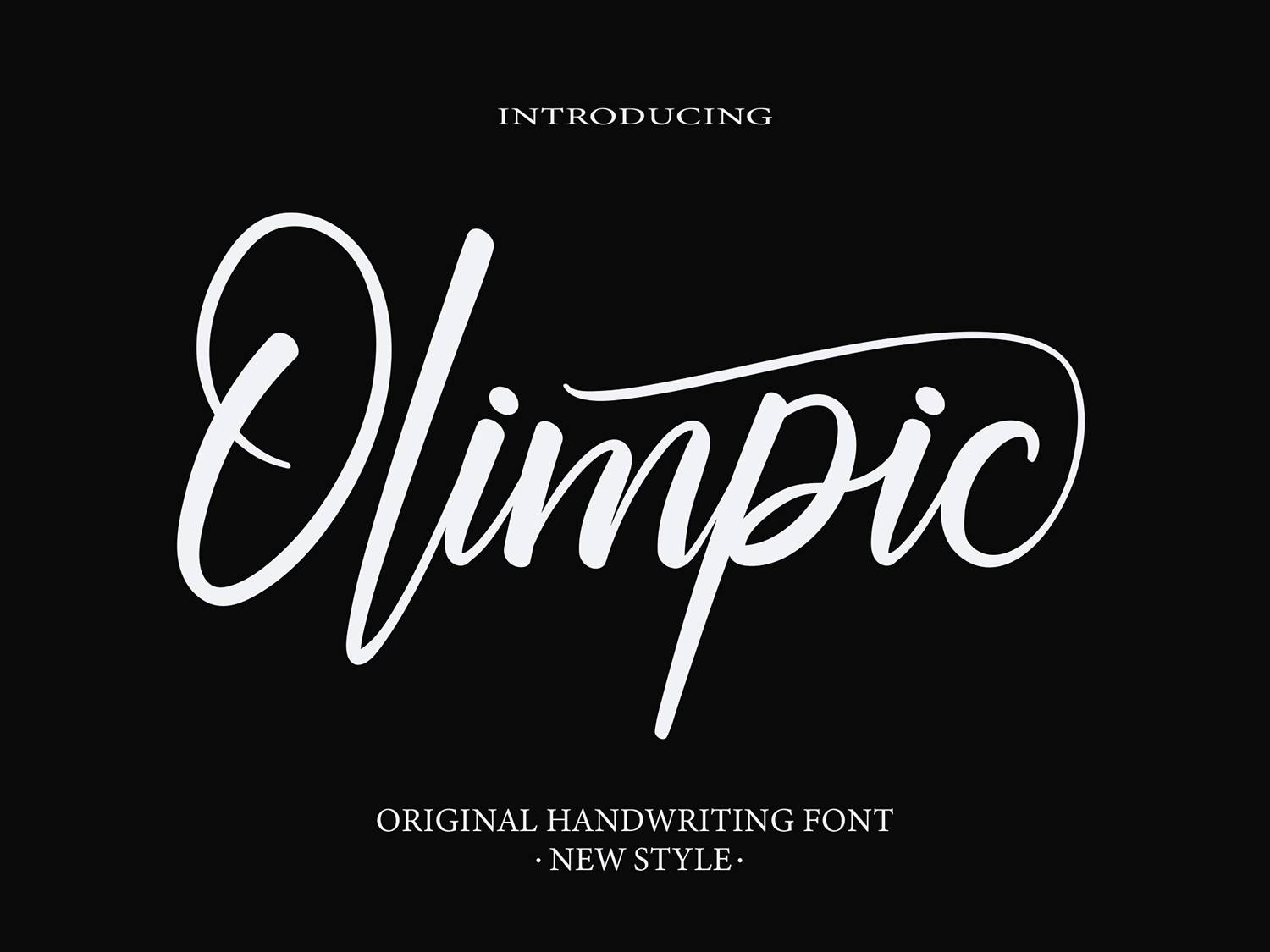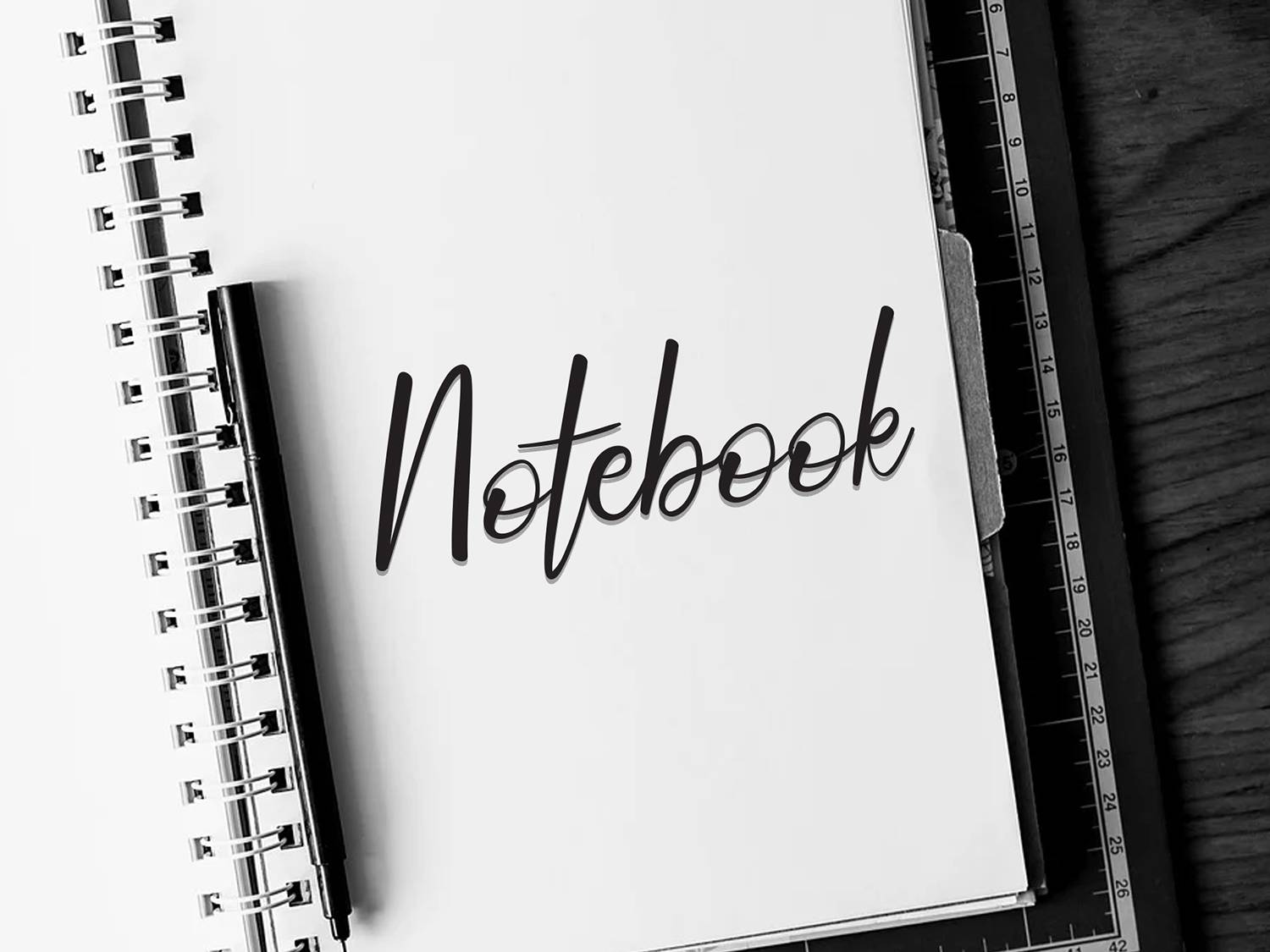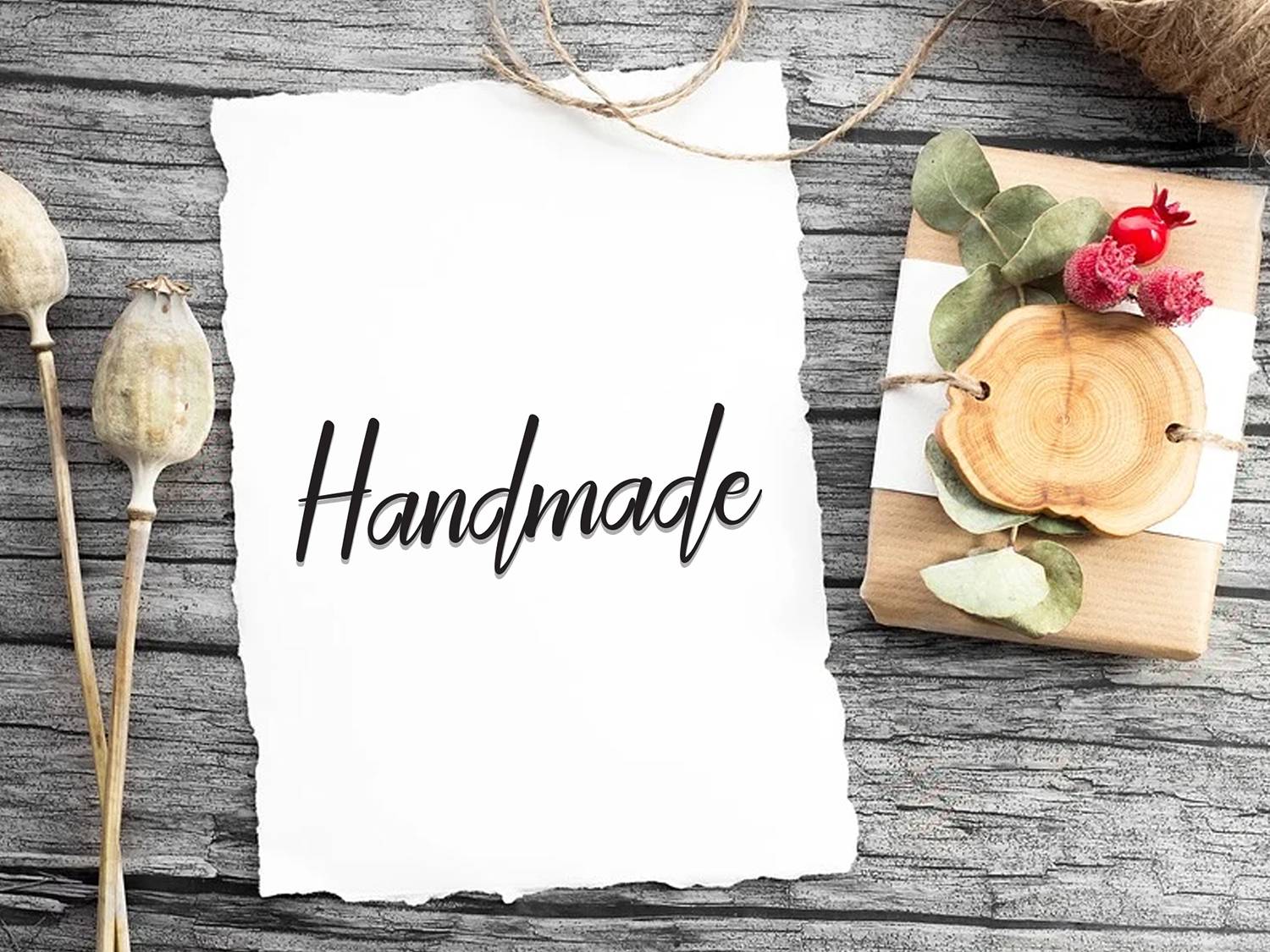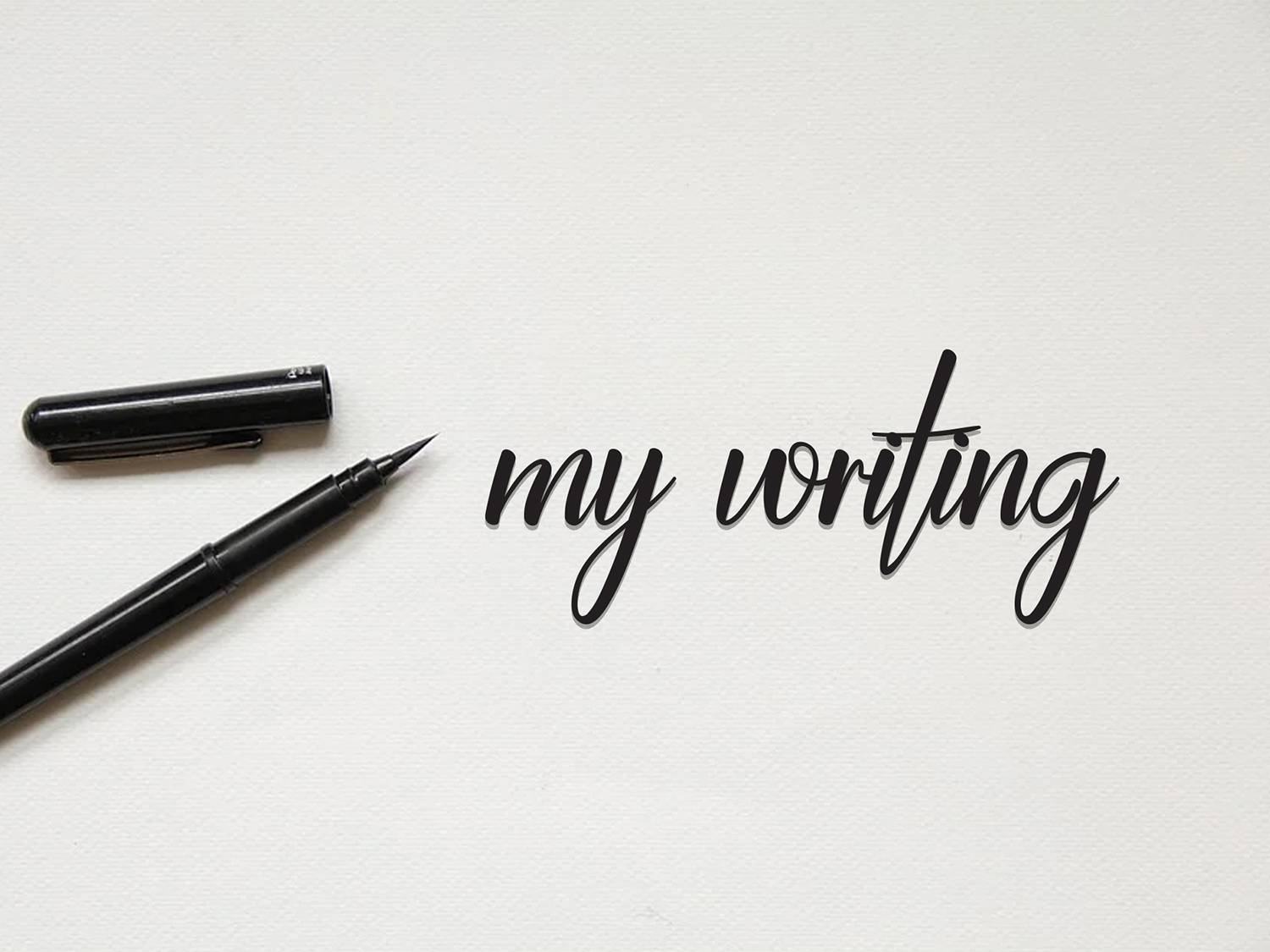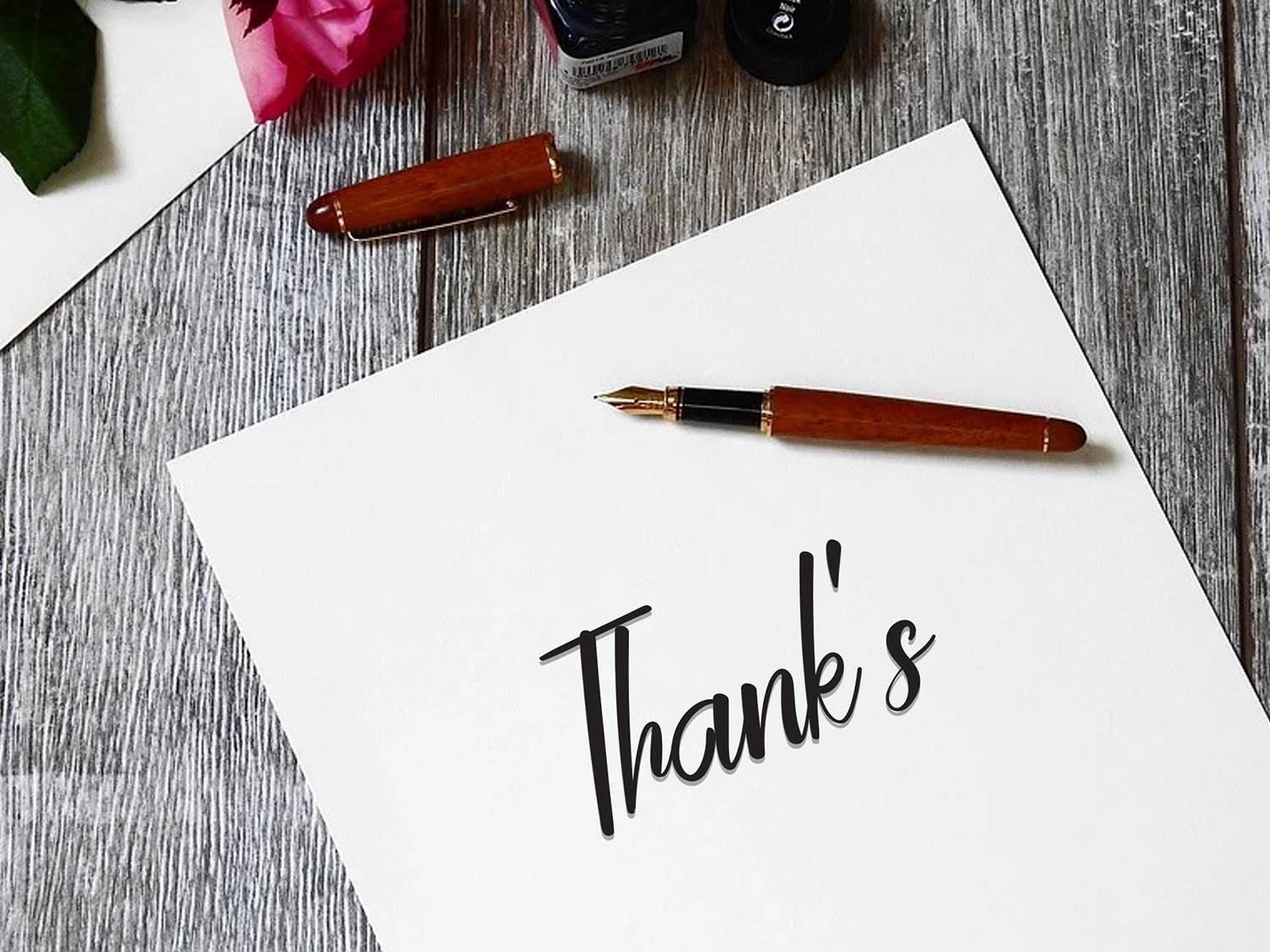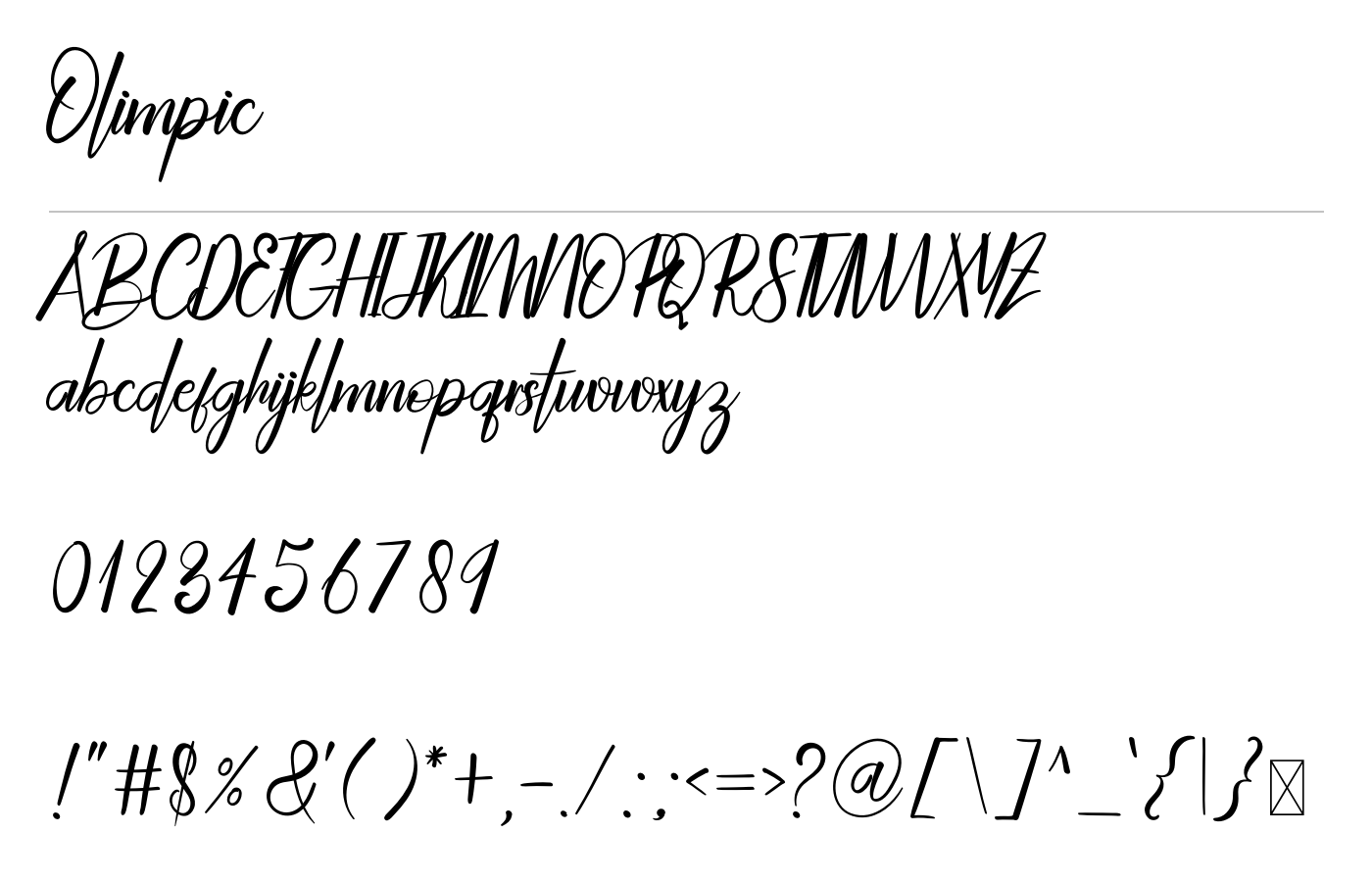
Olimpic is an elegant script font with a tall, slender appearance and a handwritten feel. Its flowing, slightly irregular strokes and delicate contrast give it a sophisticated yet approachable personality, making it ideal for stylish branding, invitations, and creative editorial projects. This font works well in display contexts where a personal, artistic touch is desired.
Olimpic Font
About Olimpic Font